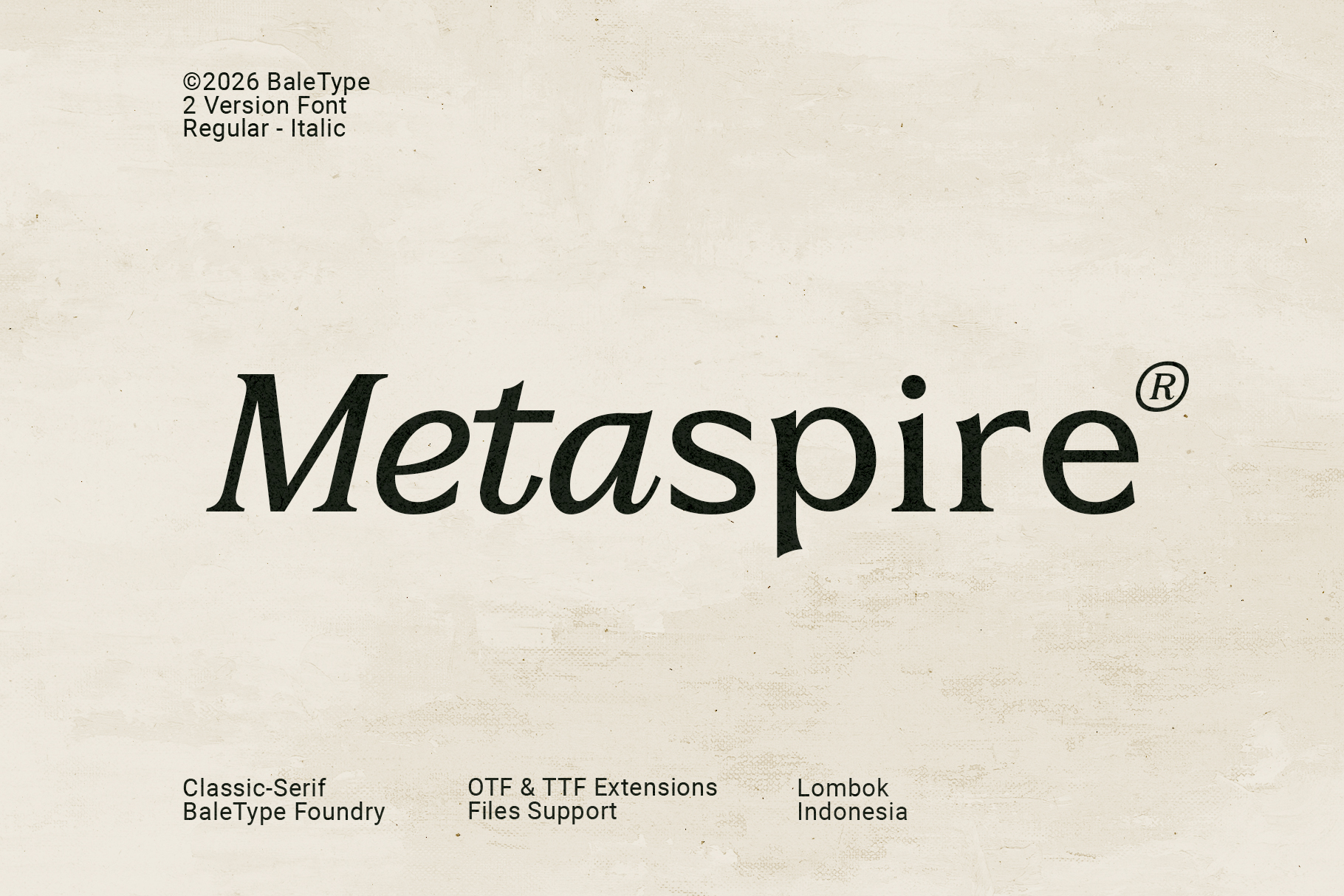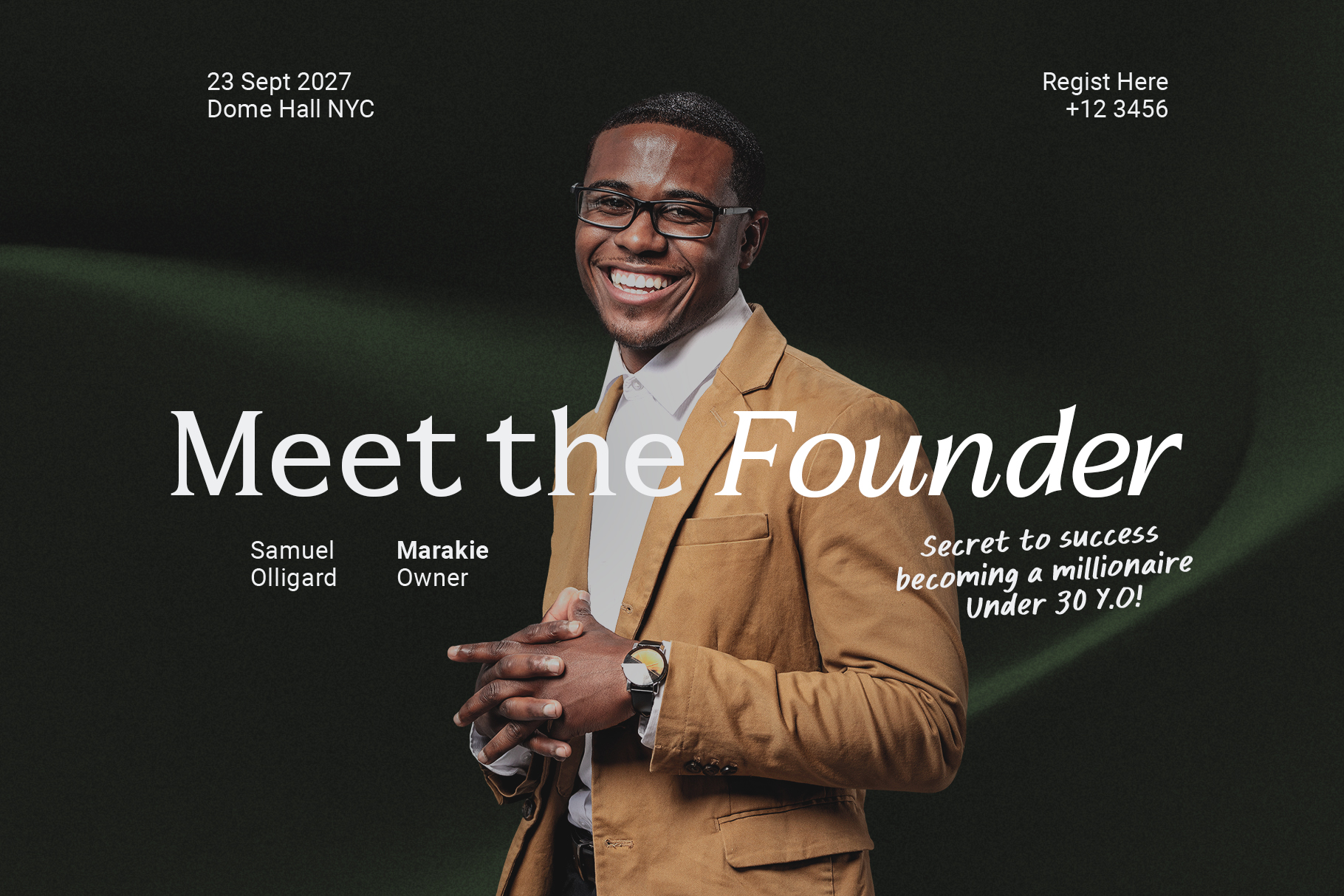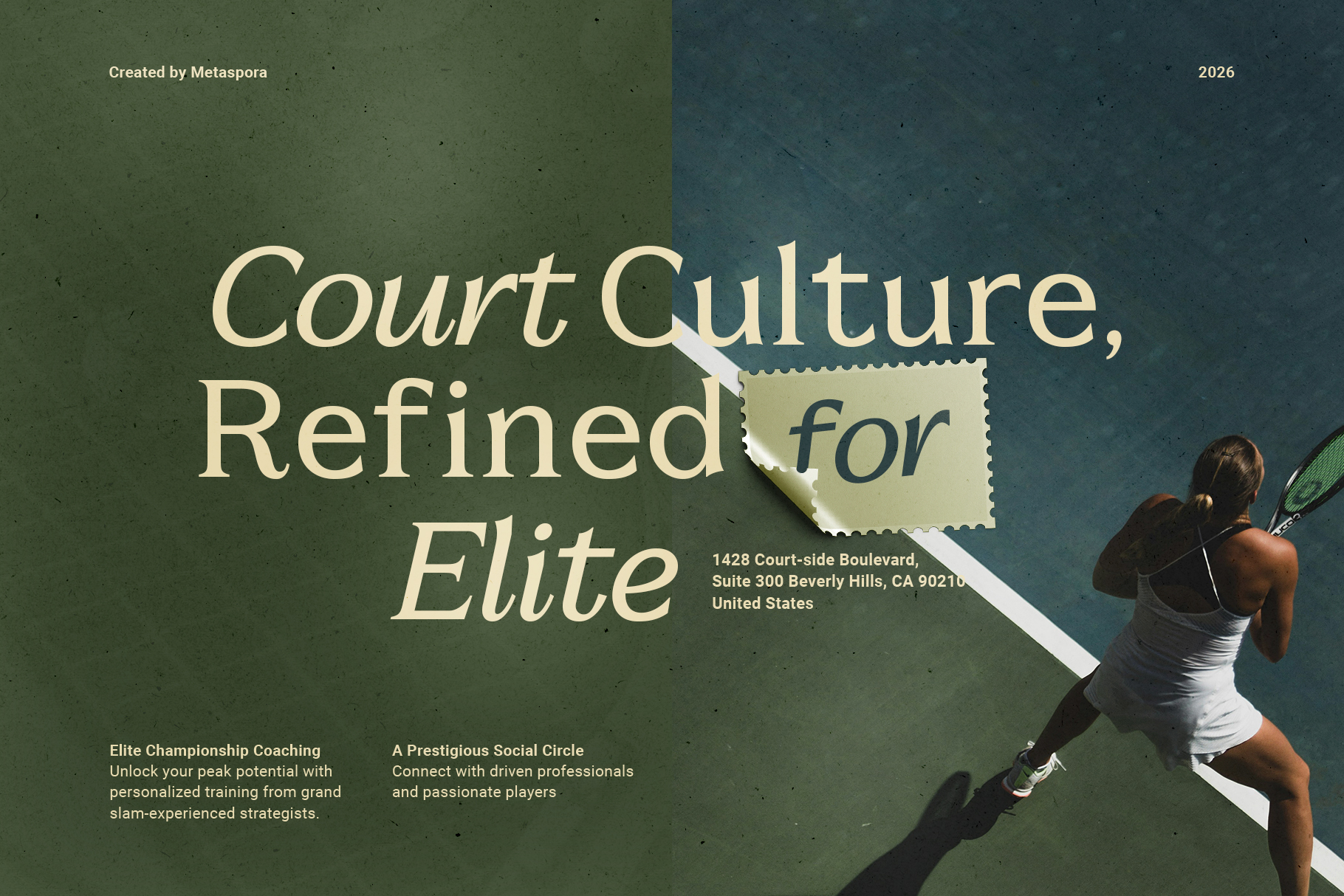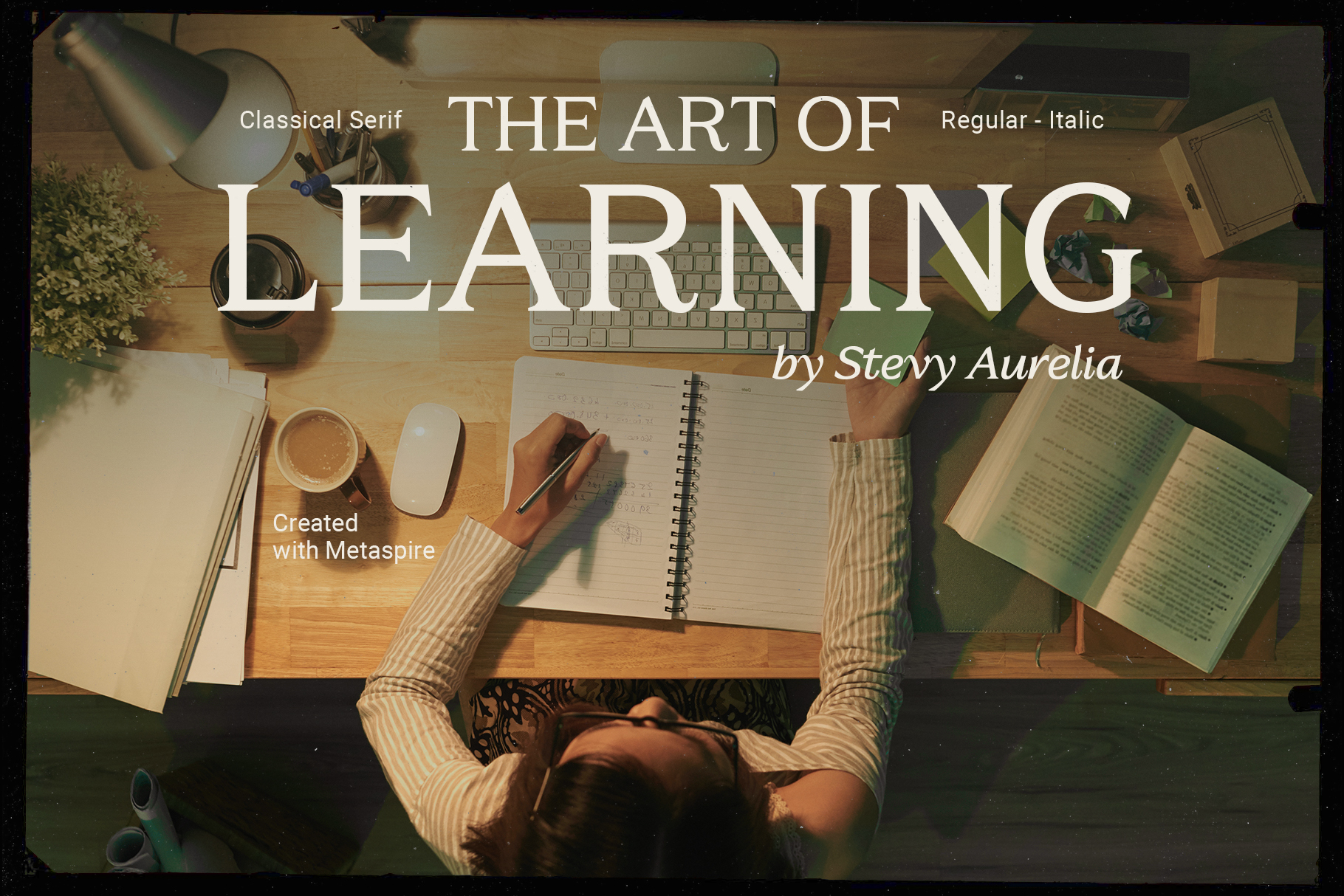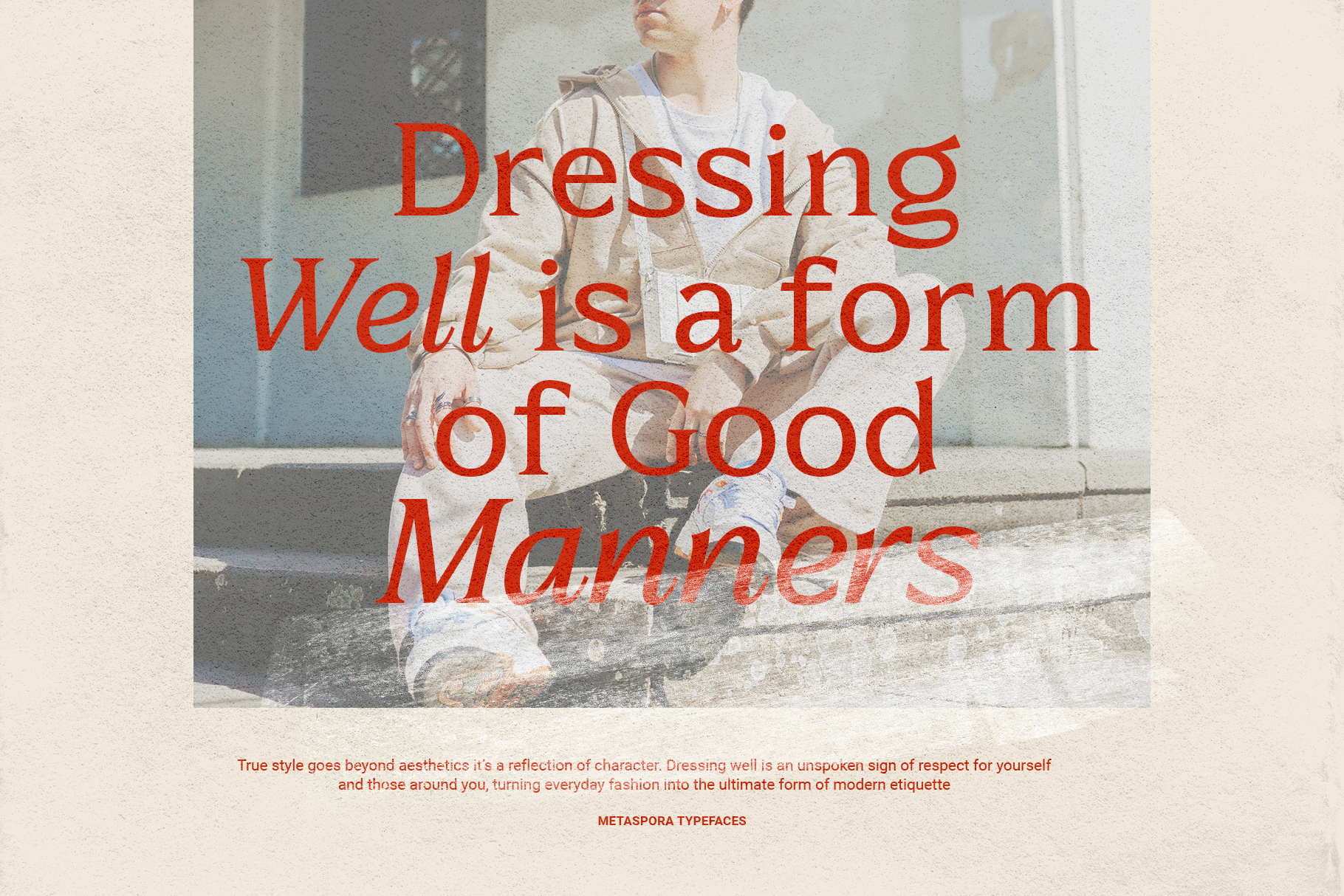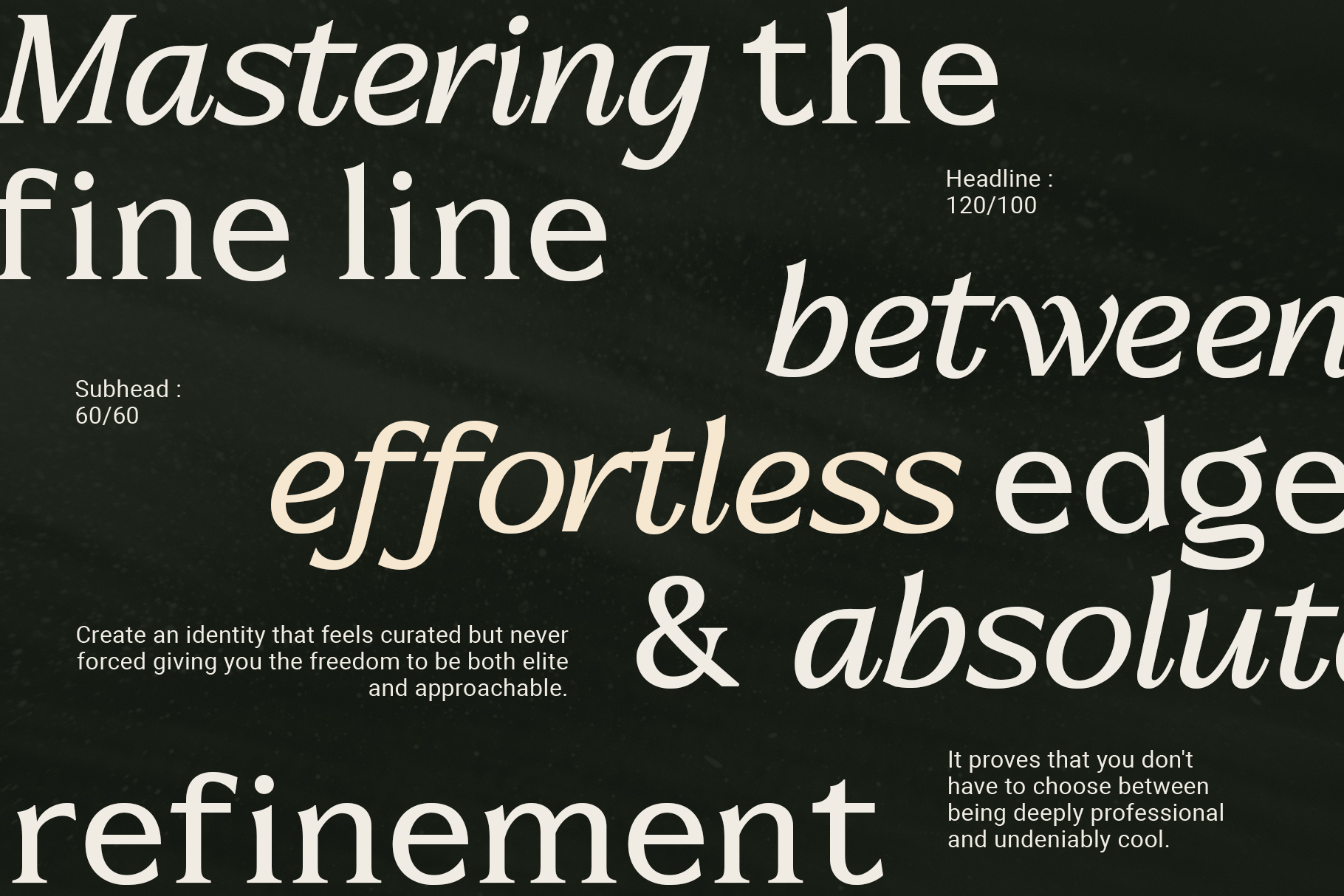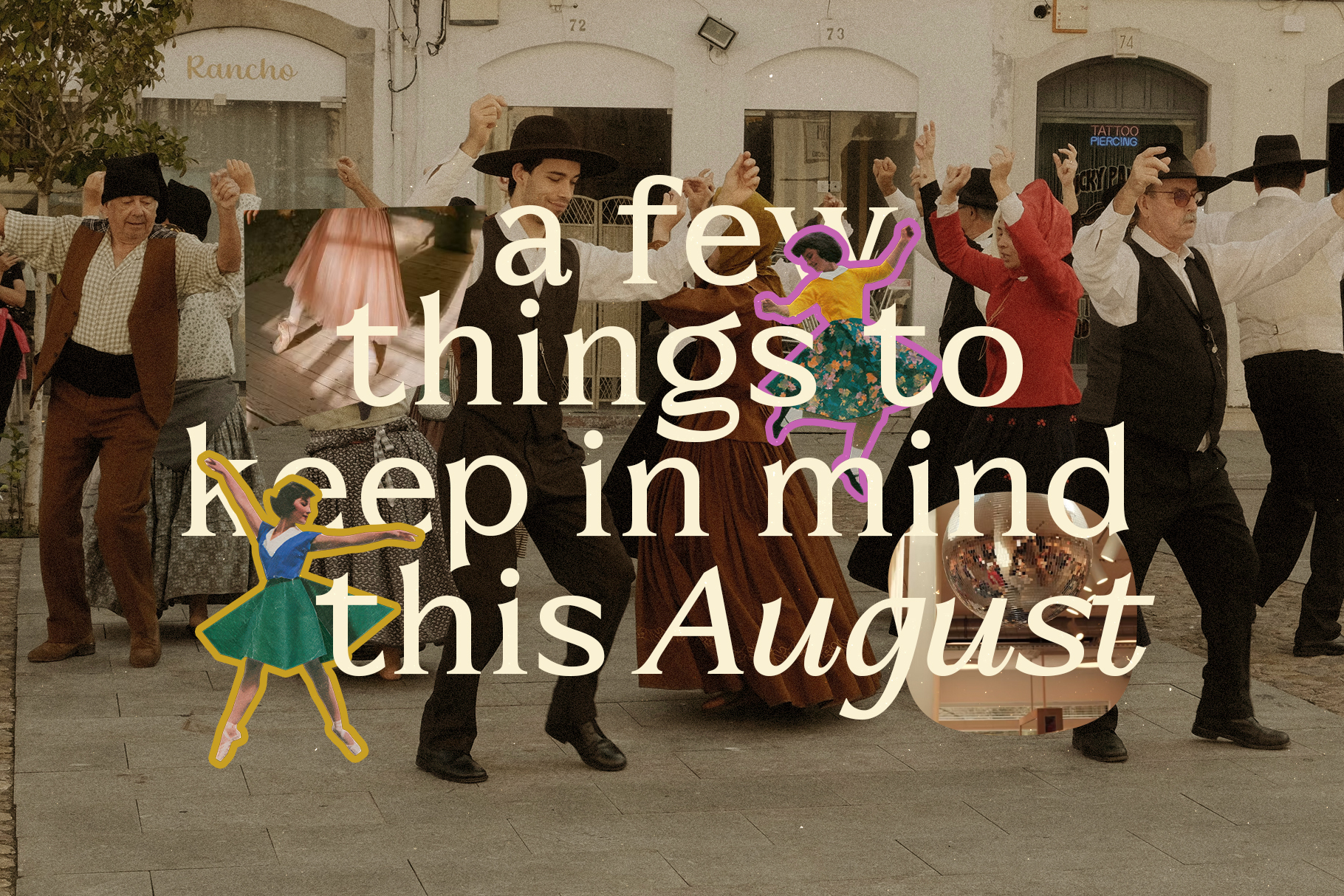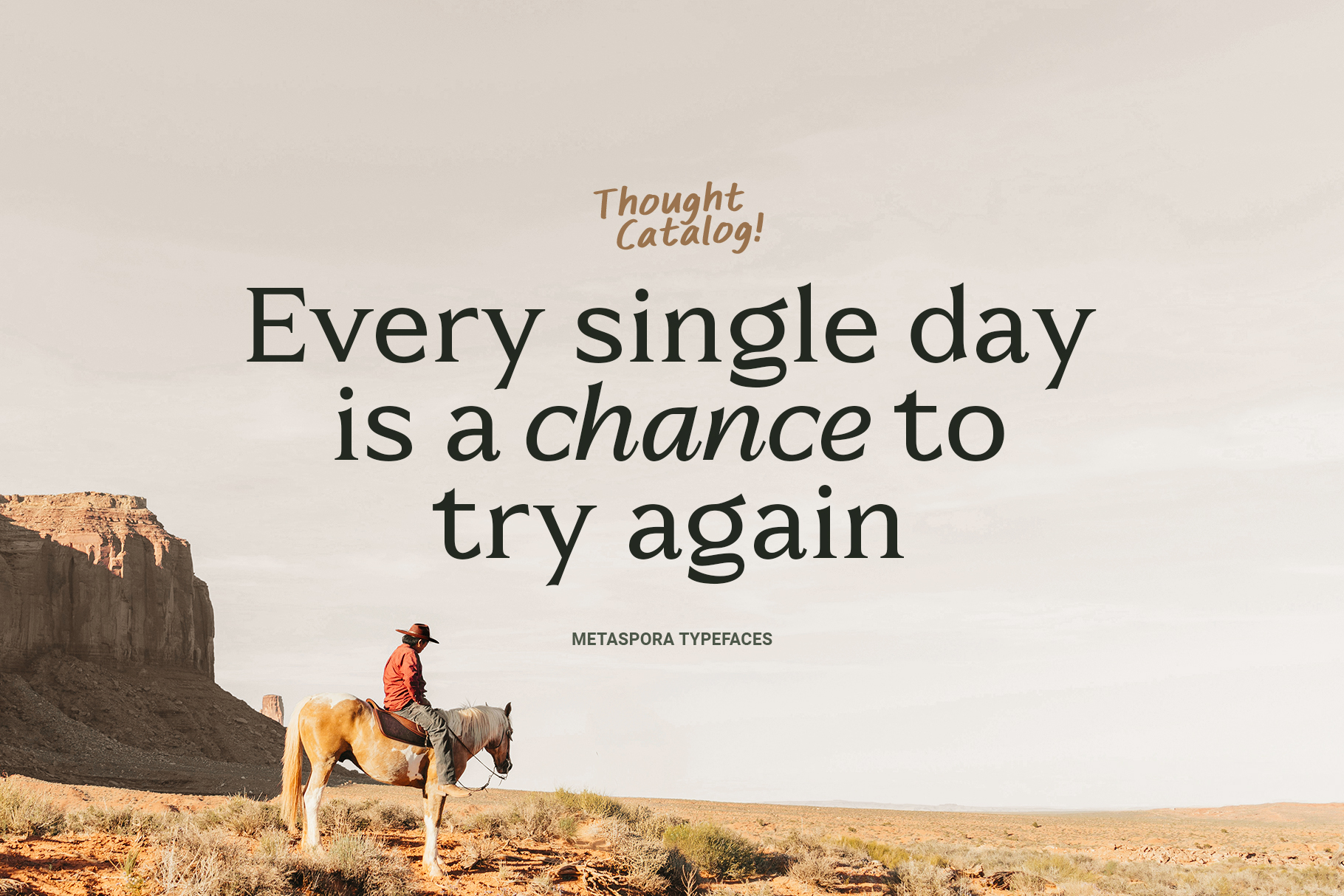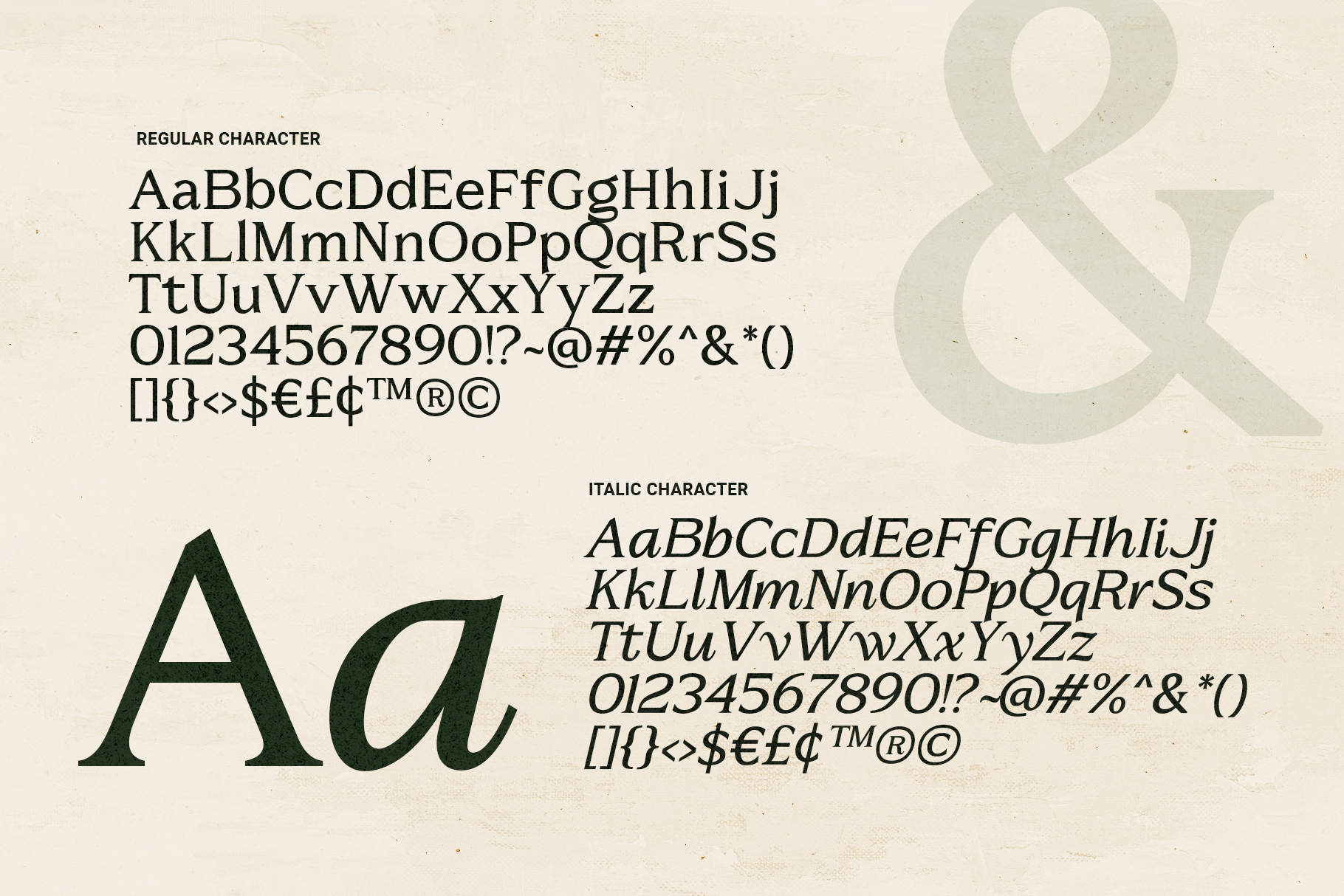
Metaspire is a modern display serif with minimalist and bold looks. You can use this font for any occasions such as logotype, poster, quote, tittle, branding, or any designs that need modern touch of serif. Comes with italic, you can make your project looks stunning when you combine both style. This font also support multi language.
Metaspire – Modern Display Serif
Metaspire is a modern display serif with minimalist and bold looks.